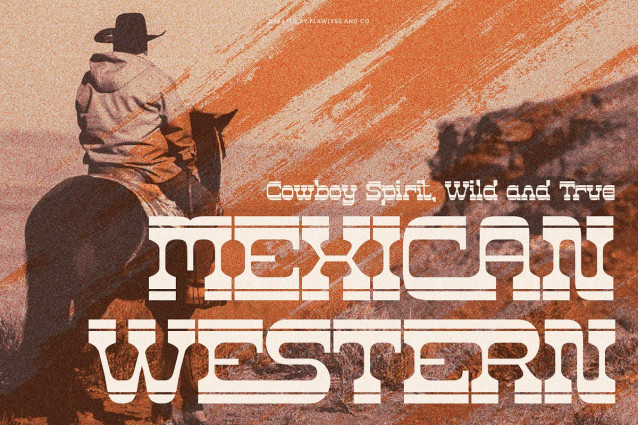
Calostre Font
Calostre Font is a bold slab serif font that blends vintage western charm with a strong and confident presence. Inspired by classic cowboy culture, retro Americana, and rugged signage, Calostre stands out with its thick horizontal lines, geometric structure, and eye-catching modular forms. Perfect for impactful design projects such as vintage branding, liquor labels, posters, apparel, signage, and bold editorial headlines, Calostre delivers a powerful, distinctive voice. Its slab serif construction adds a sense of strength and stability, while the striped letterforms give it a unique and authentic western flair. The font includes stylistic alternates and unique design details, giving you the creative freedom to craft dynamic and memorable typography.